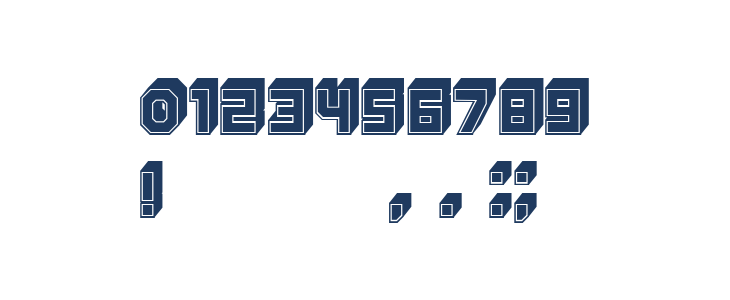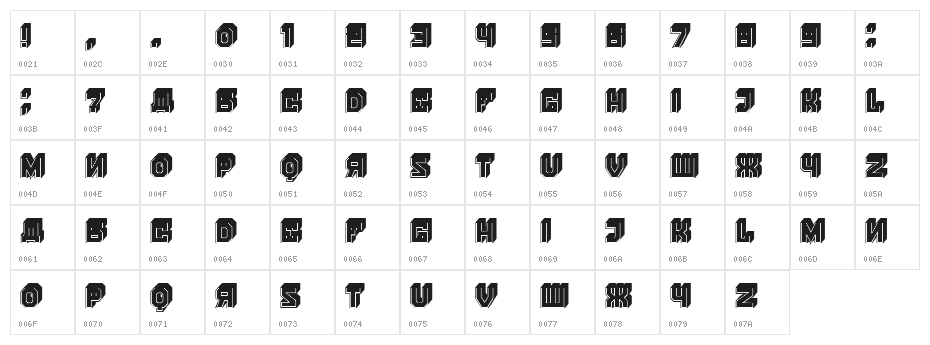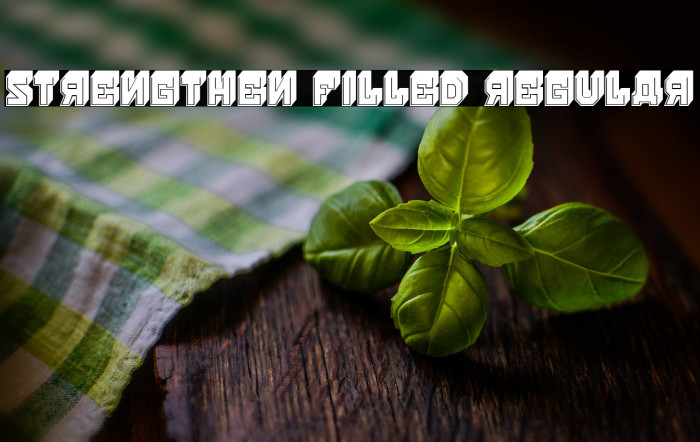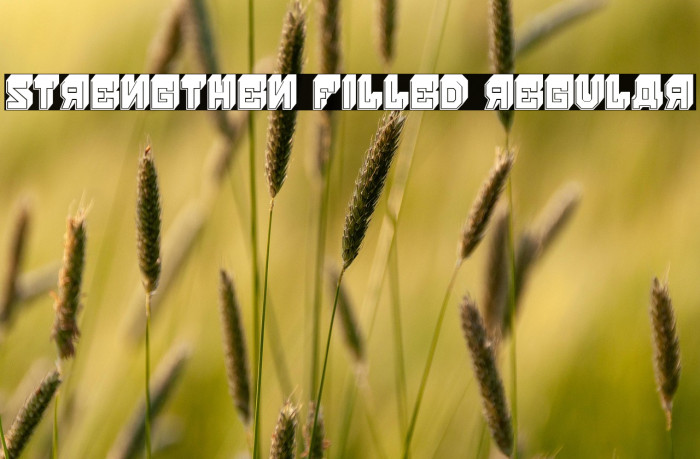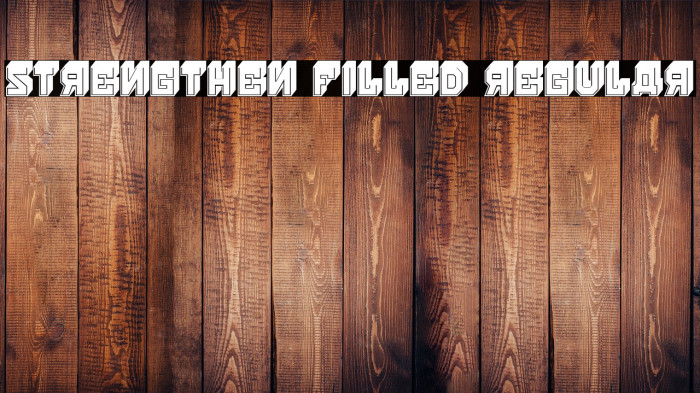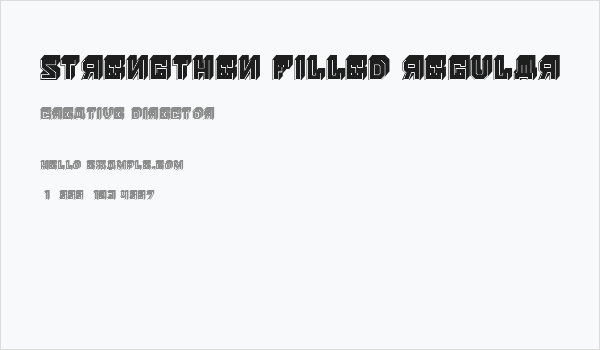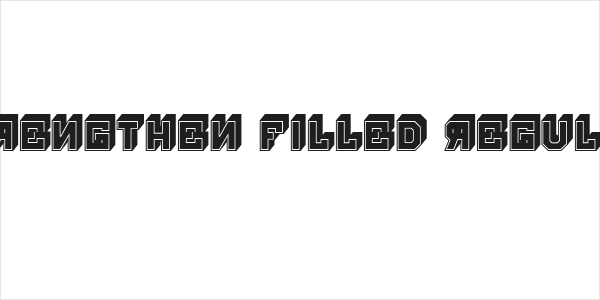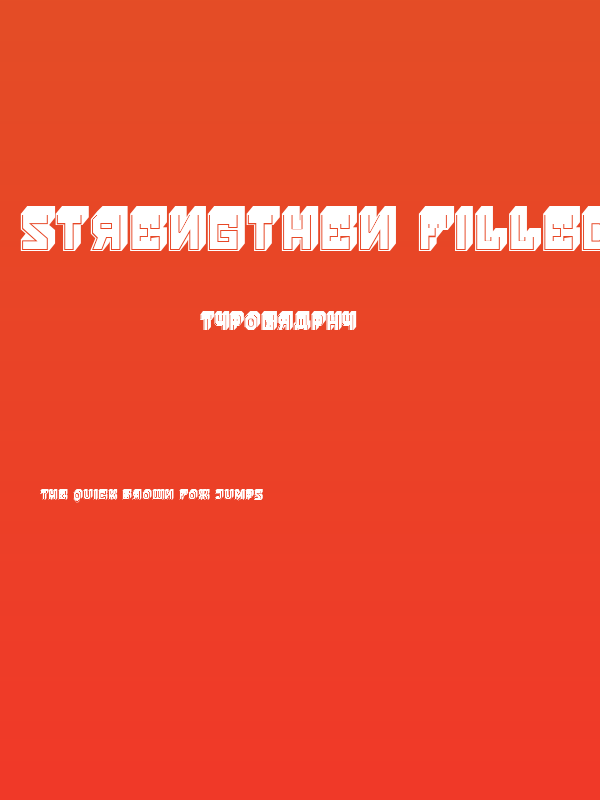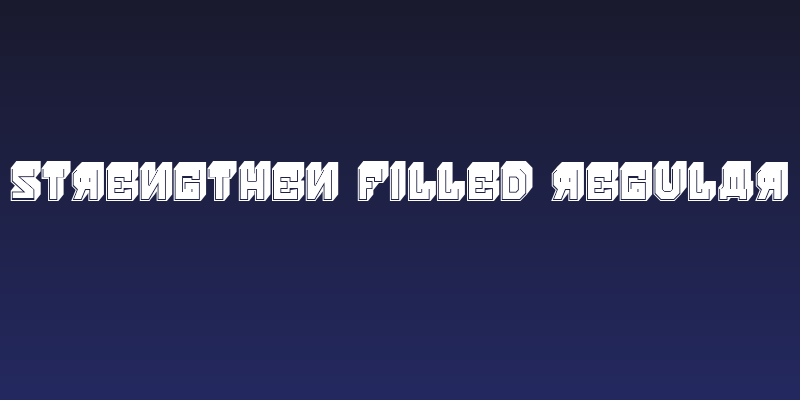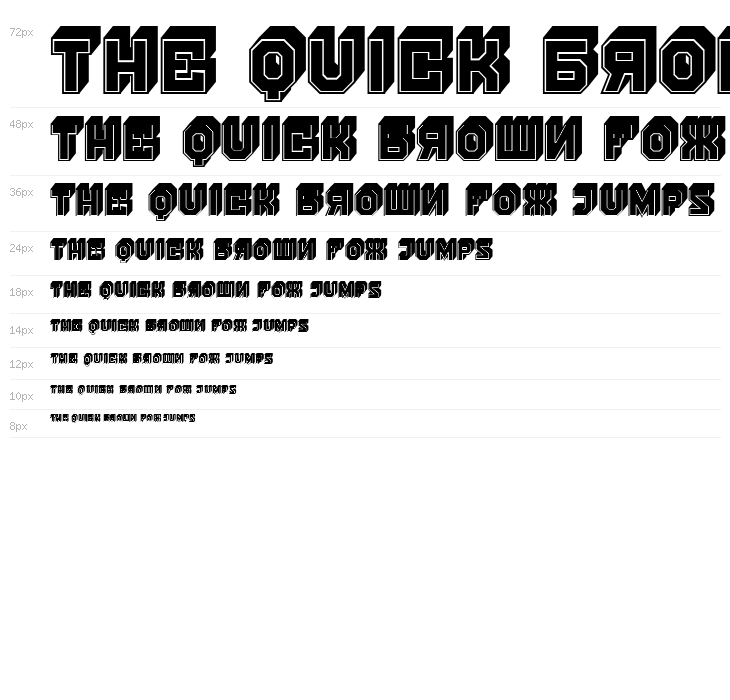
Strengthen Filled Regular Font
Strengthen Filled Regular Description
This font features a bold, geometric design with a three-dimensional effect, achieved through the use of shadowing and thick outlines. The characters are blocky and robust, giving a sense of strength and stability. The uppercase letters are particularly striking, with sharp angles and a solid presence. The numbers and special characters maintain the same bold style, ensuring consistency across all elements. This font is ideal for making a strong visual impact.
| Proposed Projects | Ideal for posters, logos, video game titles, and any project requiring a bold, impactful typeface. |